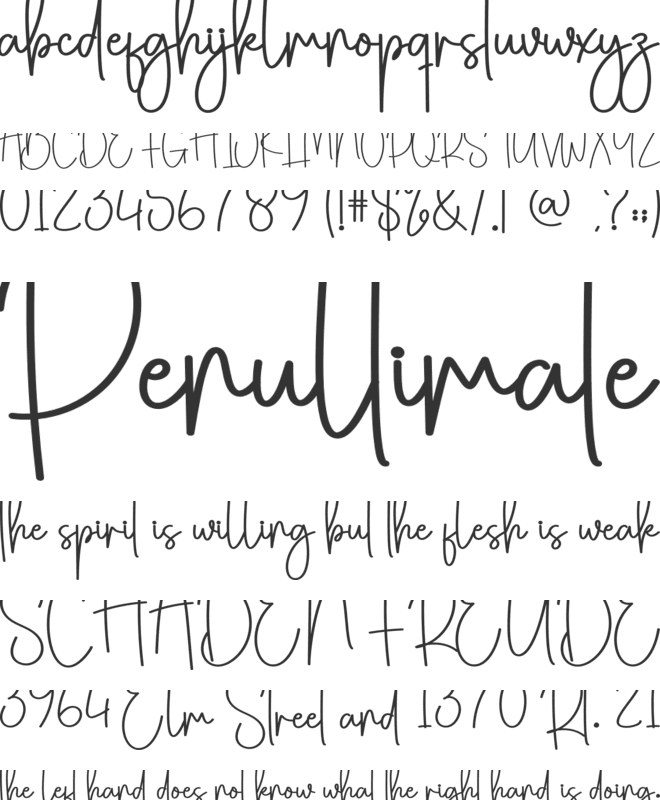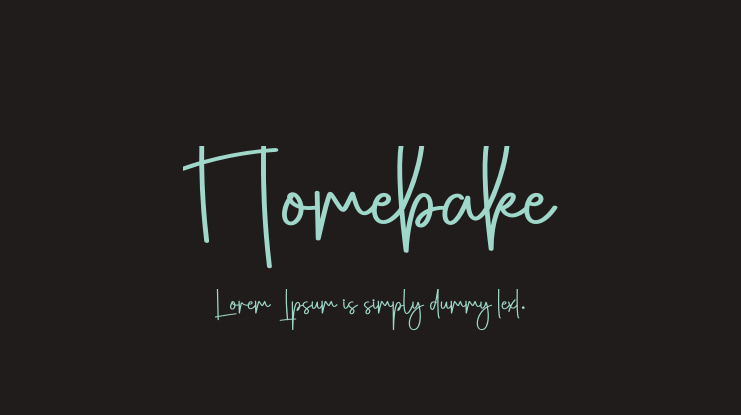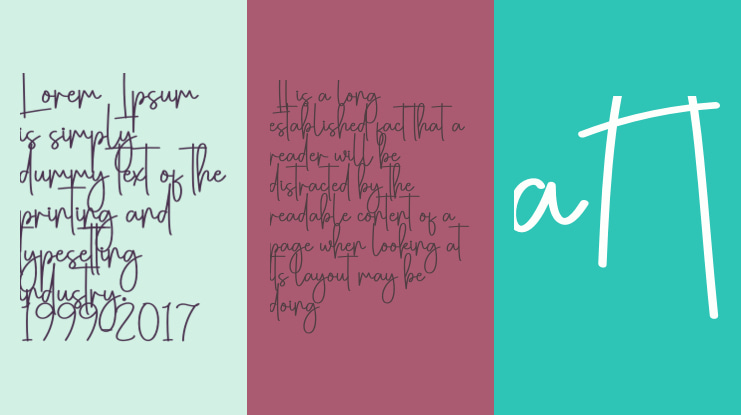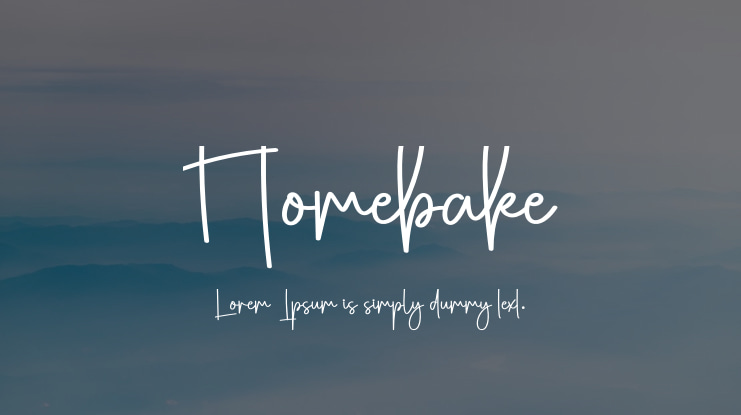
Homebake Font
The latest style fonts are perfect for wall displays, wedding invitations, social media logos, advertisements, product packaging, product designs, labels, photography, watermarks, invitations, stationery, and any project requiring elegant handwriting.